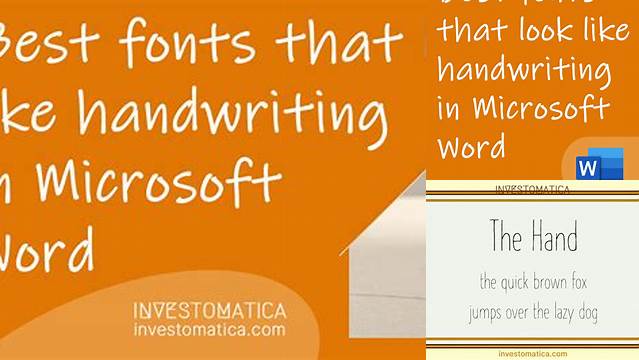
Best Handwriting Fonts For Microsoft Word: Free Picks!
Hey guys! Ever wanted to give your Microsoft Word documents a personal touch? Nothing beats the charm of handwriting, right? Well, you're in luck! There are tons of fonts out there that mimic handwriting beautifully. Let’s dive into the best fonts that will make your documents look like you’ve written them yourself. Trust me, this is going to be a game-changer for your invitations, letters, and creative projects!
Why Use Handwriting Fonts?
Before we jump into the fonts themselves, let's talk about why you might want to use handwriting fonts in the first place. Handwriting fonts can add a personal and informal touch to your documents, making them feel more inviting and less sterile than traditional fonts like Times New Roman or Arial. This is especially useful for projects where you want to create a warm and friendly vibe.
For example, if you're creating invitations for a party, a handwriting font can make your guests feel like they've received a special, handwritten note. Imagine getting an invitation that looks like it was penned just for you – it adds a certain level of excitement and anticipation, right? Similarly, if you're writing a thank-you note, a handwriting font can convey sincerity and warmth, making the recipient feel truly appreciated. Think about it: a typed thank-you note is nice, but one that looks handwritten feels so much more personal.
Handwriting fonts are also great for creative projects, such as scrapbooking, journaling, or designing custom cards. They can add a unique flair and personality to your work, making it stand out from the crowd. If you're working on a scrapbook, using a handwriting font for captions or titles can give it an authentic, vintage feel. For journal entries, a handwriting font can make your thoughts and feelings feel more intimate and personal. And if you're designing custom cards, a handwriting font can add a touch of elegance and sophistication.
But it's not just about aesthetics. Using handwriting fonts can also be a great way to capture attention and make your message memorable. In a world where we're constantly bombarded with digital communication, something that looks handwritten can really stand out. Think about it: how many emails do you get in a day that look exactly the same? But if you receive a letter or card with a beautiful handwriting font, it's much more likely to catch your eye and leave a lasting impression.
Of course, there's a balance to be struck. While handwriting fonts can be great for adding personality and warmth, they're not always the best choice for every situation. For formal documents or business reports, you'll generally want to stick with more professional and legible fonts. But for those times when you want to add a personal touch, handwriting fonts can be a fantastic tool in your arsenal.
Ultimately, the key is to use handwriting fonts strategically. Think about the message you're trying to convey, the audience you're trying to reach, and the overall tone you want to create. When used thoughtfully, handwriting fonts can be a powerful way to enhance your documents and make them truly special.
Top Handwriting Fonts for Microsoft Word
Alright, let's get to the fun part – the fonts! I’ve rounded up some of the best handwriting fonts that work like a charm in Microsoft Word. These fonts range from elegant and cursive to casual and playful, so you're sure to find something that fits your style.
1. Lucida Handwriting
First up, we have Lucida Handwriting. This one is a classic choice for a reason. It’s elegant, legible, and has a lovely, flowing script that mimics real handwriting beautifully. Lucida Handwriting is a fantastic all-around option that works well in a variety of contexts. Its flowing, cursive style gives it an air of sophistication, making it a popular choice for invitations, thank-you notes, and other formal correspondence. The loops and swirls in the letters add a touch of elegance, while the overall legibility ensures that your message is clear and easy to read. This makes it a great choice for documents where you want to convey a sense of grace and refinement.
But Lucida Handwriting isn't just for formal occasions. Its versatility makes it a great option for a wide range of projects. Imagine using it for journal entries, where its graceful script can help you capture your thoughts and feelings in a beautiful and expressive way. Or consider using it for scrapbooking, where its elegant touch can add a vintage feel to your layouts. The font's timeless appeal makes it a perfect choice for projects that you want to look classic and sophisticated.
One of the things that makes Lucida Handwriting so appealing is its legibility. Unlike some handwriting fonts that can be difficult to read, Lucida Handwriting is designed to be clear and easy on the eyes. This is especially important for documents that are meant to be read by others, such as letters, invitations, or announcements. You want your message to be easily understood, and Lucida Handwriting helps you achieve that by striking the perfect balance between style and readability.
Another great thing about Lucida Handwriting is that it’s widely available and easy to use in Microsoft Word. It's often included as a standard font in many versions of Word, so you may already have it on your computer. If not, it's relatively easy to find and install. Once you have it installed, using it in Word is as simple as selecting it from the font menu. You can adjust the size, color, and other formatting options to customize the look and feel of your text. This makes Lucida Handwriting a convenient and accessible option for anyone who wants to add a touch of elegance to their documents.
In terms of specific use cases, Lucida Handwriting shines in situations where you want to create a sense of refinement and sophistication. Think of using it for wedding invitations, where its elegant script can set the tone for a special and memorable event. Or consider using it for personal stationery, where its graceful touch can add a touch of class to your correspondence. It's also a great choice for certificates or awards, where its elegant style can convey a sense of prestige and accomplishment. Lucida Handwriting is a versatile font that can help you make a lasting impression.
2. Brush Script MT
Next, we have Brush Script MT, which is another fantastic choice. This font has a more fluid and dynamic feel compared to Lucida Handwriting. It’s bold, a bit dramatic, and gives off a retro vibe that’s super cool. If you're looking to inject some energy and personality into your documents, Brush Script MT is a great option. Its bold strokes and sweeping curves give it a sense of movement and dynamism that can really capture attention. This makes it a perfect choice for projects where you want to make a statement and stand out from the crowd. Think about using it for headings, titles, or short phrases that you want to emphasize.
Brush Script MT is particularly well-suited for projects that have a retro or vintage theme. Its bold, flowing script evokes the look and feel of mid-century advertising and design, giving it a nostalgic charm. If you're working on a project that celebrates a particular era or style, Brush Script MT can help you create an authentic and visually appealing design. Imagine using it for posters, flyers, or social media graphics that have a retro vibe. It can also be a great choice for invitations or announcements that have a vintage twist.
But Brush Script MT isn't just for retro projects. Its boldness and expressiveness make it a great choice for a wide range of applications. Consider using it for logos or branding materials, where its distinctive style can help you create a memorable and impactful brand identity. It's also a great choice for quotes or inspirational messages, where its bold strokes can add emphasis and emotion to your words. The font's dynamic feel makes it perfect for projects that need a touch of energy and excitement.
One of the things that sets Brush Script MT apart is its fluidity. The letters flow together seamlessly, creating a sense of movement and grace. This fluidity gives the font a natural, handwritten feel that can add a personal touch to your documents. It's like you've just brushed the letters onto the page with a calligraphy pen. This makes it a great choice for projects where you want to convey a sense of authenticity and craftsmanship.
Another great thing about Brush Script MT is that it’s relatively easy to read, despite its bold and expressive style. The letters are well-formed and distinct, making it easy to follow the words on the page. This is especially important for projects where legibility is a concern, such as headlines or titles. You want your message to be easily understood, and Brush Script MT helps you achieve that by striking the perfect balance between style and readability.
In terms of specific use cases, Brush Script MT shines in situations where you want to make a bold and memorable statement. Think of using it for event posters or flyers, where its eye-catching style can help you grab attention and draw people in. Or consider using it for website headings or blog titles, where its distinctive look can help you create a strong and engaging online presence. It's also a great choice for t-shirt designs or merchandise, where its bold strokes can make your message stand out. Brush Script MT is a versatile font that can help you make a big impact.
3. Segoe Script
Then there's Segoe Script, a font that’s clean, modern, and very legible. It’s perfect if you want a handwriting font that looks polished and professional. Segoe Script strikes a wonderful balance between elegance and readability, making it a versatile choice for a wide range of applications. Its clean lines and well-formed letters give it a polished look, while its flowing script adds a touch of personality and warmth. This makes it a great option for projects where you want to convey a sense of professionalism without sacrificing a personal touch.
One of the things that makes Segoe Script so appealing is its legibility. Unlike some handwriting fonts that can be difficult to decipher, Segoe Script is designed to be clear and easy to read. The letters are distinct and well-spaced, making it easy to follow the words on the page. This is especially important for documents that are meant to be read by a wide audience, such as reports, presentations, or marketing materials. You want your message to be easily understood, and Segoe Script helps you achieve that by prioritizing readability.
Segoe Script is also known for its modern and contemporary feel. It doesn't have the same retro or vintage vibe as some other handwriting fonts. Instead, it has a fresh and up-to-date look that makes it a great choice for projects that want to convey a sense of innovation and style. Think about using it for website copy, email newsletters, or social media graphics. Its modern aesthetic can help you create a sleek and professional design that resonates with today's audiences.
But Segoe Script isn't just for digital projects. Its versatility makes it a great option for print materials as well. Consider using it for business cards, letterheads, or brochures. Its elegant yet professional style can help you create a cohesive and polished brand identity. It's also a great choice for invitations or announcements, where its refined script can add a touch of sophistication to your event.
The font's clean lines and balanced proportions make it a great choice for body text as well. Unlike some handwriting fonts that are only suitable for headings or titles, Segoe Script can be used for longer passages of text without sacrificing readability. This makes it a practical choice for documents where you want to maintain a consistent and professional look throughout.
In terms of specific use cases, Segoe Script shines in situations where you want to convey a sense of modern elegance and professionalism. Think of using it for client presentations, where its polished style can help you make a strong and confident impression. Or consider using it for marketing reports, where its clean lines can help you present data and insights in a clear and engaging way. It's also a great choice for personal branding materials, such as resumes or portfolios, where its refined script can help you showcase your skills and expertise. Segoe Script is a versatile font that can help you create a polished and professional look in a variety of contexts.
4. Bradley Hand ITC
If you’re after something more casual, Bradley Hand ITC is your go-to. This font looks like someone jotted something down quickly, making it super relatable and friendly. Bradley Hand ITC is the font equivalent of a friendly wave or a warm smile. It has a relaxed and approachable style that makes it perfect for projects where you want to create a sense of informality and connection. Its casual, handwritten feel gives it a personal touch that can help you build rapport with your audience. Think about using it for thank-you notes, casual invitations, or friendly reminders. Its warmth and charm can help you create a more engaging and personal experience.
One of the things that makes Bradley Hand ITC so appealing is its authenticity. It truly looks like someone quickly jotted something down, complete with slight variations in letter height and spacing. This gives it a natural, handwritten feel that is hard to replicate with other fonts. It's like you're getting a glimpse of someone's actual handwriting, which can be incredibly endearing and relatable. This makes it a great choice for projects where you want to convey a sense of honesty and genuineness.
Bradley Hand ITC is particularly well-suited for informal communications. It's a great choice for personal emails, where its friendly style can help you connect with friends and family. It's also a great choice for casual notes or messages, where its relaxed feel can help you express yourself in a natural and unpretentious way. Think about using it for a handwritten note to a colleague, a thank-you card to a friend, or a reminder to yourself. Its casual charm can help you make a positive impression without feeling overly formal.
But Bradley Hand ITC isn't just for personal use. Its versatility makes it a great option for certain types of business communications as well. Consider using it for internal memos or team updates, where its friendly tone can help you foster a sense of camaraderie and collaboration. It's also a great choice for customer service emails, where its approachable style can help you build trust and rapport with your customers. The key is to use it in situations where a more casual and personal touch is appropriate.
The font's slightly uneven and imperfect appearance is part of its charm. It's not meant to look perfectly polished or refined. Instead, it's meant to look real and authentic. This makes it a great choice for projects where you want to convey a sense of honesty and authenticity. Think about using it for a handwritten quote, a personal message, or a heartfelt sentiment. Its imperfections can add to its charm and make your message even more impactful.
In terms of specific use cases, Bradley Hand ITC shines in situations where you want to create a sense of warmth and connection. Think of using it for handmade cards, where its friendly style can help you express your sentiments in a personal and heartfelt way. Or consider using it for classroom materials, where its casual tone can help you engage with students and create a welcoming learning environment. It's also a great choice for community newsletters, where its approachable style can help you connect with your neighbors and build a sense of community. Bradley Hand ITC is a versatile font that can help you create a friendly and authentic experience.
5. Kristen ITC
Last but not least, we have Kristen ITC. This font is playful, whimsical, and super fun! It's like the handwriting of a cool, creative friend. If you want to add a touch of personality and cheerfulness to your documents, Kristen ITC is an excellent choice. Kristen ITC is the life of the party when it comes to fonts. It's playful, whimsical, and full of personality. If you're looking to add a touch of fun and creativity to your documents, Kristen ITC is a fantastic choice. Its quirky letterforms and bouncy baseline give it a cheerful and energetic feel that can brighten up any project. Think about using it for party invitations, children's books, or anything that needs a dose of whimsy. Its playful nature can help you create a more engaging and memorable experience.
One of the things that makes Kristen ITC so unique is its distinctive letterforms. Each letter has its own personality, with playful curves and unexpected angles. This gives the font a hand-drawn feel that is both charming and quirky. It's like each letter is dancing on the page, adding a sense of movement and excitement. This makes it a great choice for projects where you want to stand out from the crowd and make a bold statement.
Kristen ITC is particularly well-suited for youthful and creative projects. It's a great choice for children's books, where its playful style can help engage young readers and bring the story to life. It's also a great choice for party invitations, where its cheerful tone can set the stage for a fun and festive event. Think about using it for birthday parties, baby showers, or any other celebration where you want to create a joyful and lighthearted atmosphere. Its whimsical charm can help you make a lasting impression.
But Kristen ITC isn't just for kids. Its versatility makes it a great option for certain types of adult projects as well. Consider using it for creative blogs or websites, where its playful style can help you express your personality and stand out from the competition. It's also a great choice for social media graphics, where its eye-catching design can help you grab attention and engage with your audience. The key is to use it in situations where a more playful and creative touch is appropriate.
The font's bouncy baseline and irregular spacing add to its quirky charm. It's not meant to look perfectly polished or uniform. Instead, it's meant to look fun and spontaneous. This makes it a great choice for projects where you want to convey a sense of playfulness and creativity. Think about using it for a handmade card, a personal journal, or a scrapbook layout. Its imperfections can add to its charm and make your project even more unique.
In terms of specific use cases, Kristen ITC shines in situations where you want to create a sense of fun and excitement. Think of using it for event posters, where its playful style can help you attract attention and generate buzz. Or consider using it for greeting cards, where its cheerful tone can help you express your sentiments in a lighthearted and joyful way. It's also a great choice for craft projects, where its whimsical charm can help you add a personal touch to your creations. Kristen ITC is a versatile font that can help you create a playful and memorable experience.
How to Install and Use Fonts in Microsoft Word
Okay, so now you know about some awesome handwriting fonts, but how do you actually use them in Microsoft Word? Don’t worry, it’s super easy! Let’s walk through the steps.
Installing Fonts
First things first, you need to install the font on your computer. Most of the fonts I’ve mentioned are either already available in Word or can be downloaded for free from various websites. Here’s how to install a font if you’ve downloaded it:
- Download the font file: Usually, it comes in a ZIP file. Extract the file to a folder on your computer.
- Right-click on the font file: You’ll see a menu pop up.
- Click “Install”: That’s it! Windows will install the font for you.
On a Mac, the process is just as simple:
- Double-click the font file: This opens the Font Book application.
- Click “Install Font”: And you’re done!
Using Fonts in Microsoft Word
Once the font is installed, using it in Word is a piece of cake:
- Open Microsoft Word: Start a new document or open an existing one.
- Select the text: Highlight the text you want to change, or if you're starting fresh, just click where you want to start typing.
- Go to the “Home” tab: Look for the font selection dropdown menu.
- Choose your font: Scroll through the list and select the handwriting font you just installed (or one that’s already there).
- Start typing: Your text will now appear in the selected handwriting font!
Tips for Using Handwriting Fonts Effectively
Handwriting fonts can be super fun, but it’s important to use them wisely. Here are a few tips to keep in mind:
- Don’t overuse them: Too much handwriting font can make your document look cluttered and hard to read. Use them sparingly for headings, titles, or short snippets of text.
- Consider the context: Handwriting fonts are great for informal documents, but they might not be the best choice for a formal report or business letter. Think about the tone and purpose of your document.
- Pay attention to legibility: Some handwriting fonts can be tricky to read. Make sure your chosen font is clear enough for your audience to understand.
- Adjust the size and spacing: Experiment with different font sizes and line spacing to find what looks best. A slightly larger font size can make a handwriting font more legible.
So there you have it! A whole bunch of awesome handwriting fonts for Microsoft Word that will help you add a personal touch to your documents. Whether you're crafting invitations, writing letters, or working on creative projects, these fonts are sure to make your work stand out. Have fun experimenting and finding the perfect font for your needs. Happy writing, guys!